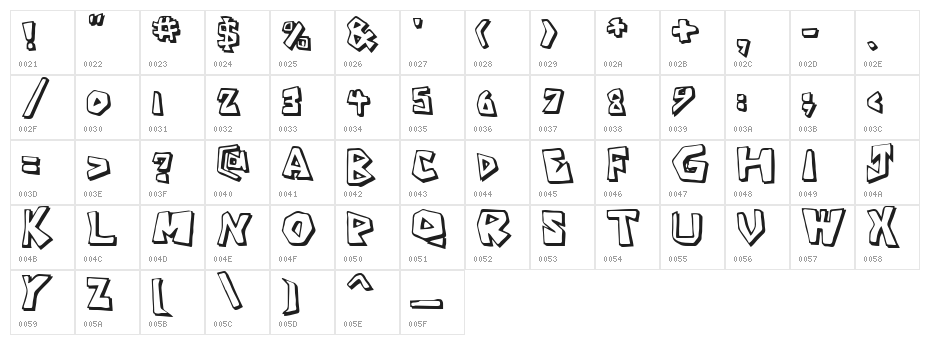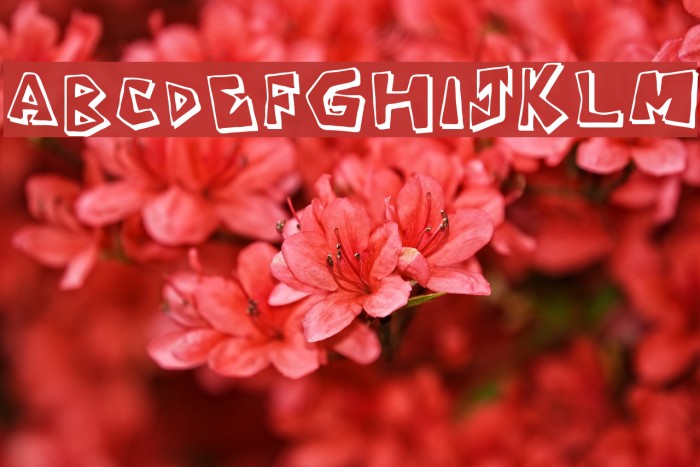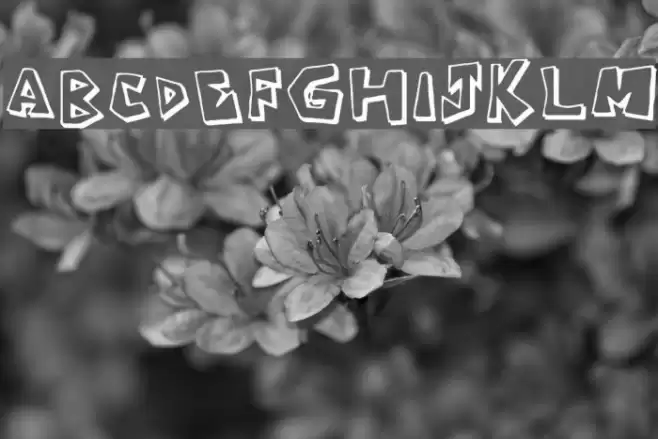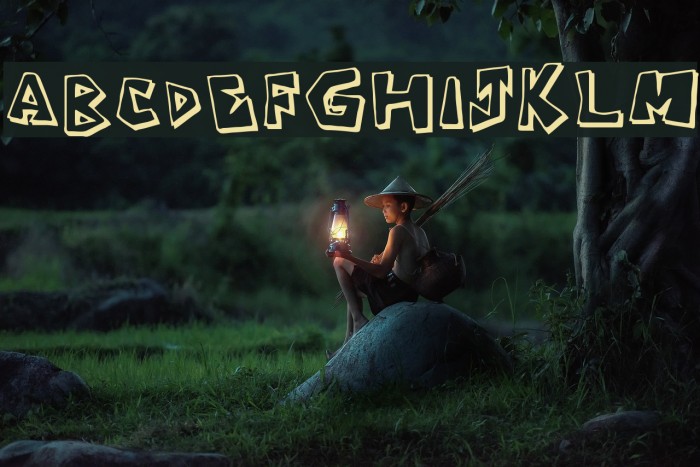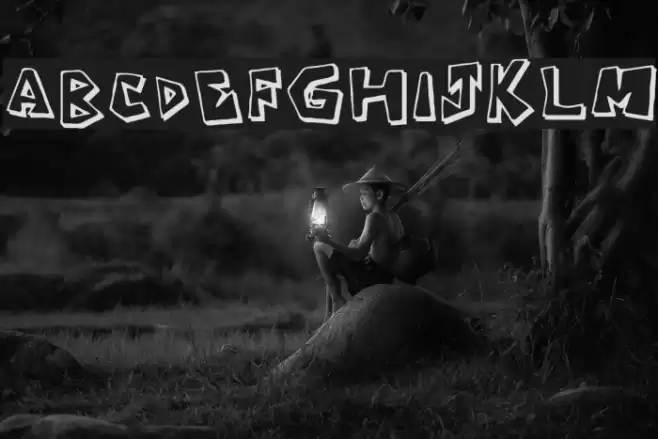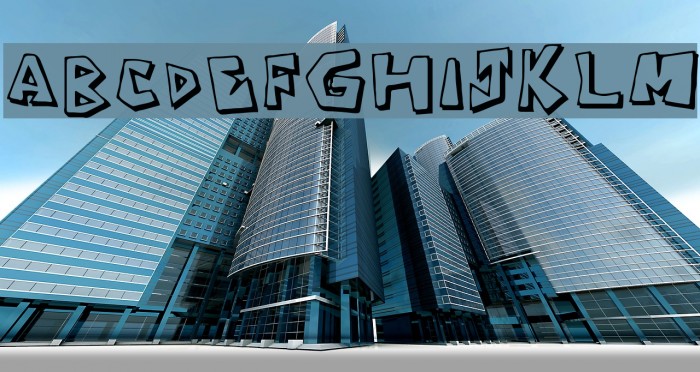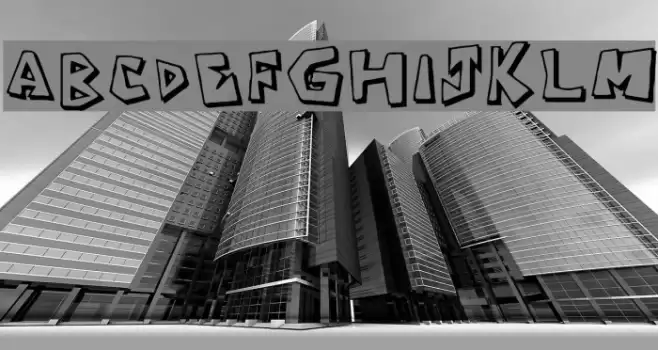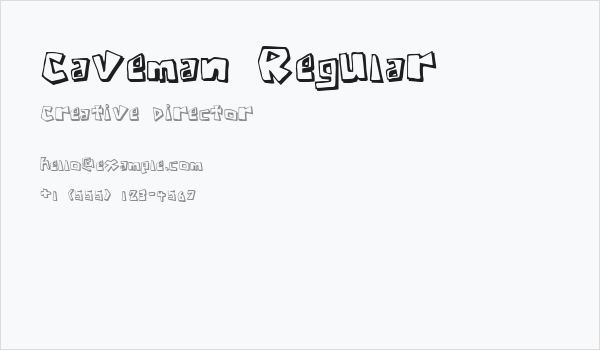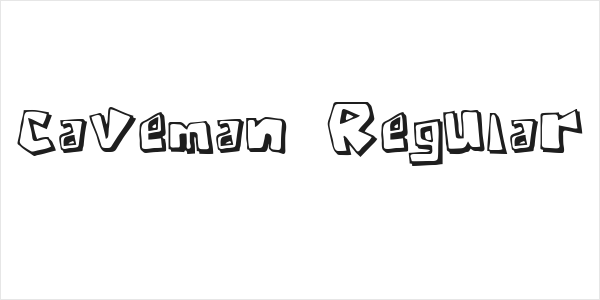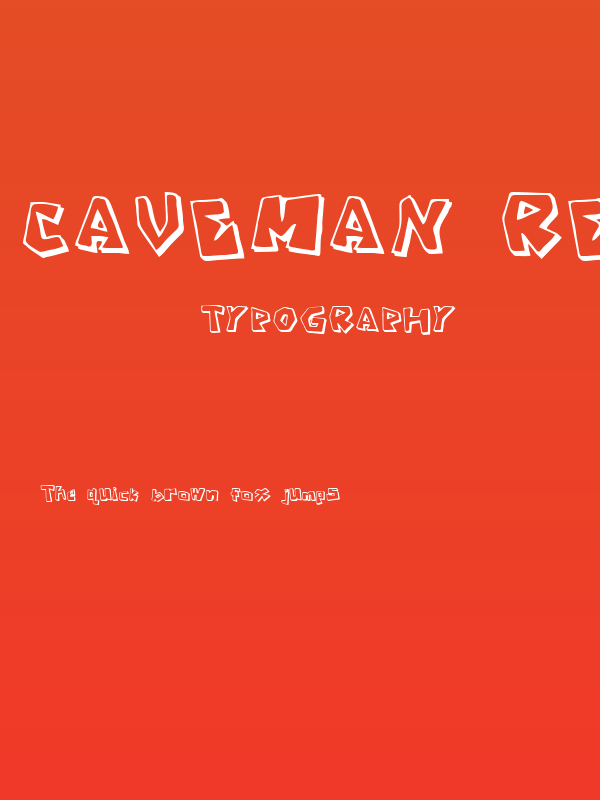
Caveman Regular Font
Caveman Regular Description
This font features a playful and rugged style, reminiscent of primitive carvings or graffiti. The letters have an irregular, hand-drawn appearance with bold outlines and uneven edges, giving them a dynamic and energetic feel. The uppercase and lowercase letters maintain a consistent style, with exaggerated angles and a slightly chaotic arrangement. Numbers and special characters follow the same aesthetic, ensuring a cohesive look across all glyphs. The font's unique character makes it suitable for projects that require a bold and unconventional approach.
| Proposed Projects | Ideal for children's book covers, comic strips, playful branding, and event posters. |